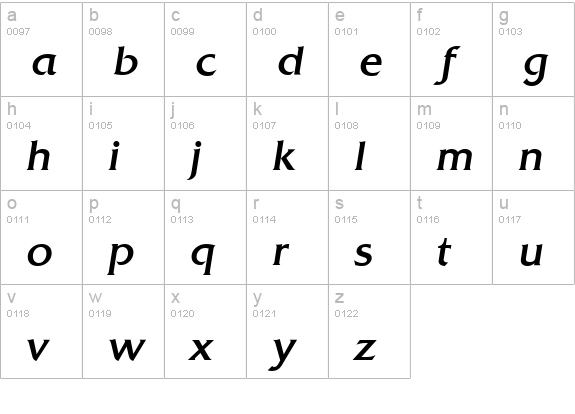
QuadratSerial-Italic Font Details
QuadratSerial-Italic is a distinctive, italic variant in the QuadratSerial typeface family \xE2\x80\x94 well suited to design and typography projects.
QuadratSerial-Italic is a sleek and modern font that exudes sophistication and elegance. With its stylish italicized design, this font is perfect for adding a touch of class to any project. Whether you're designing a logo, creating a website, or crafting a print advertisement, QuadratSerial-Italic is sure to make a bold statement. The best part? QuadratSerial-Italic is available for free download at FontsMarket.com. This means you can easily access this premium font without any cost, making it a valuable addition to your design toolkit. Don't miss out on the opportunity to elevate your projects with the timeless charm of QuadratSerial-Italic. Download it today and start creating stunning designs that are sure to impress.